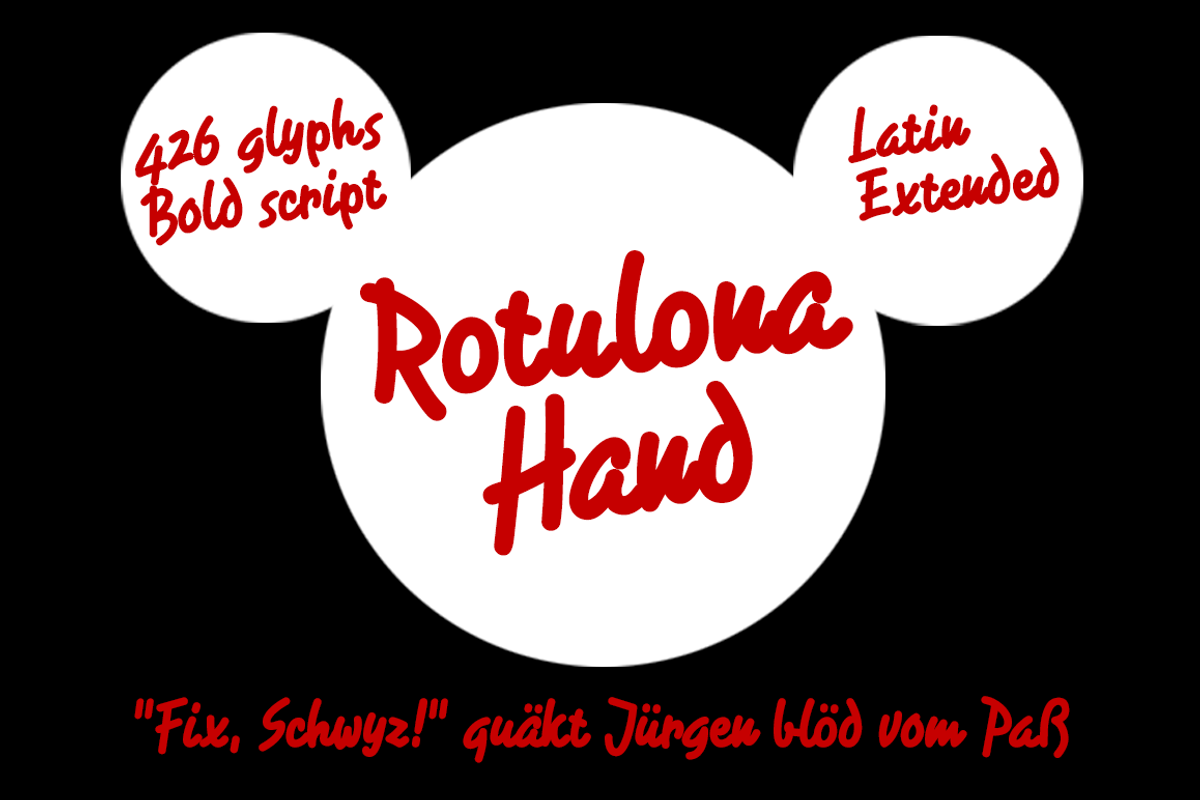
Rotulona Hand -font-
Rotulona Hand -font- by deFharo is a font selected for branding, posters, packaging, typography.
- Numbers old style, Ligatures, Fractions, Currencies, Denominators, Numerators, Slash zero, Inferiors, Superiors, Dynamic fractions, Ordinals
Why Rotulona Hand -font- is worth a look
Rotulona Hand -font- by deFharo fits naturally into Branding, posters, packaging, typography.